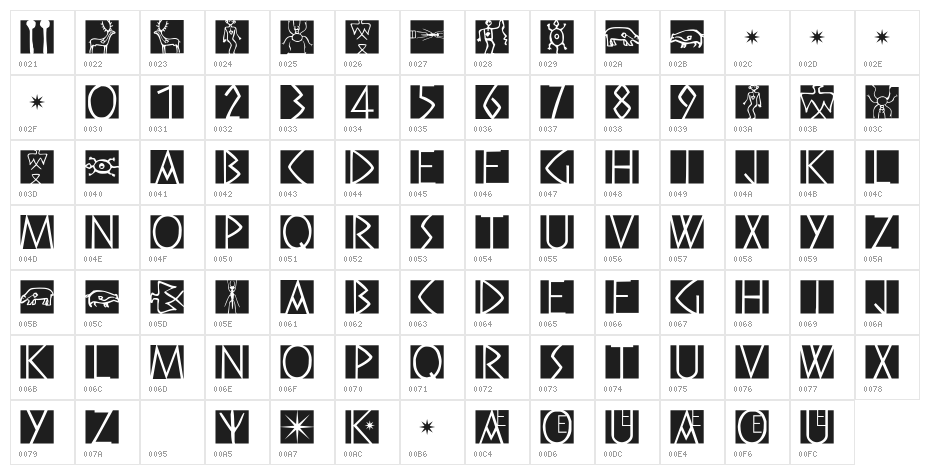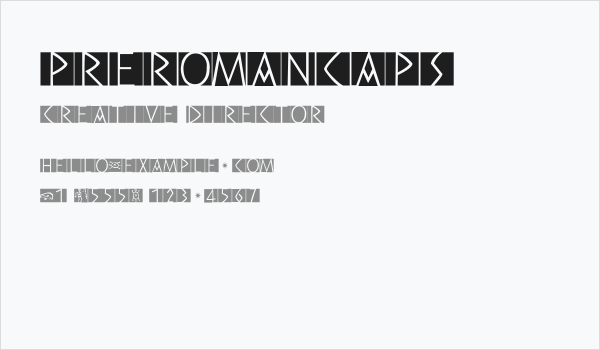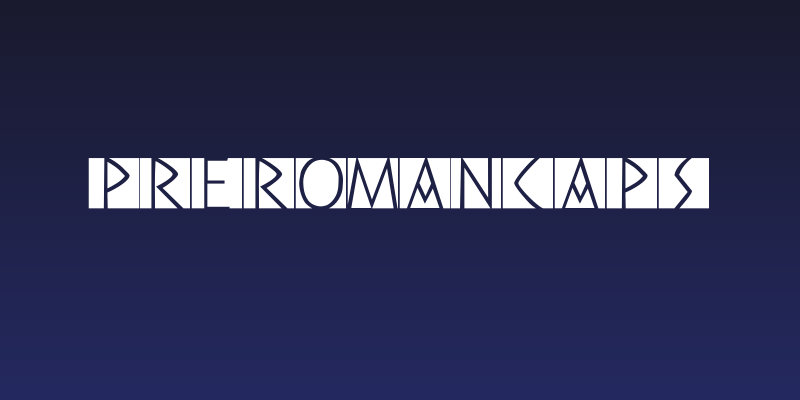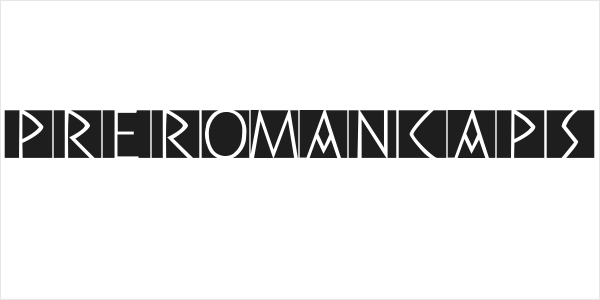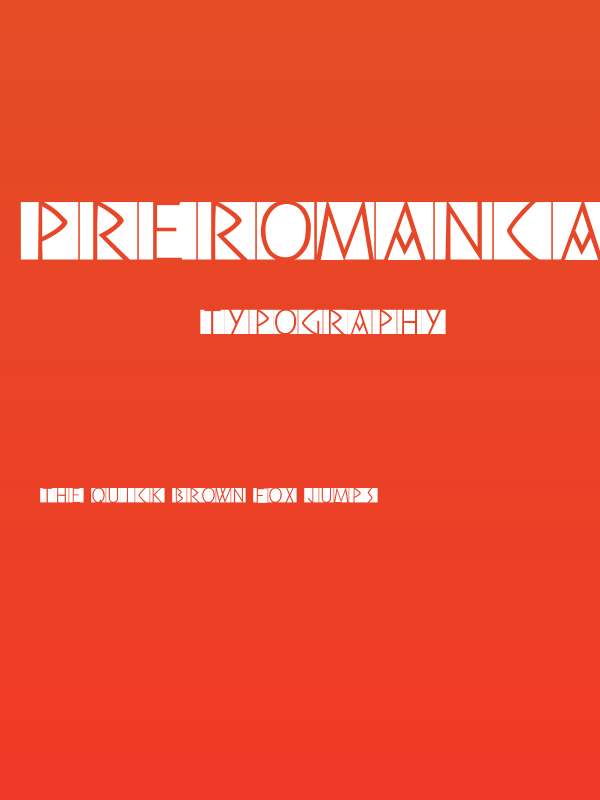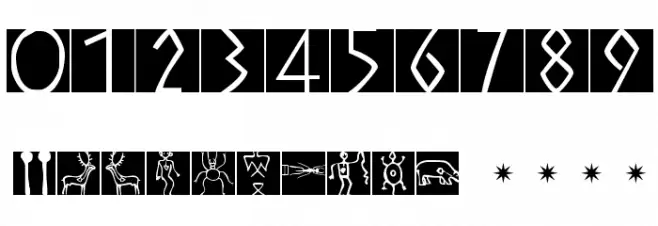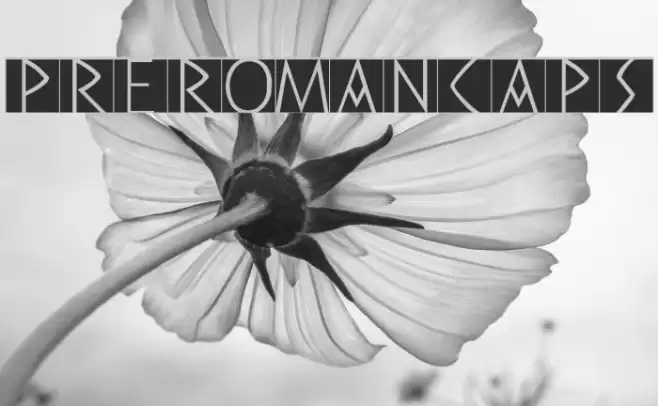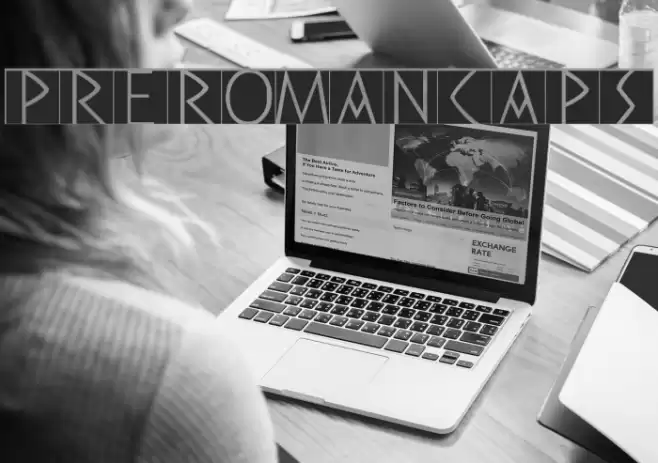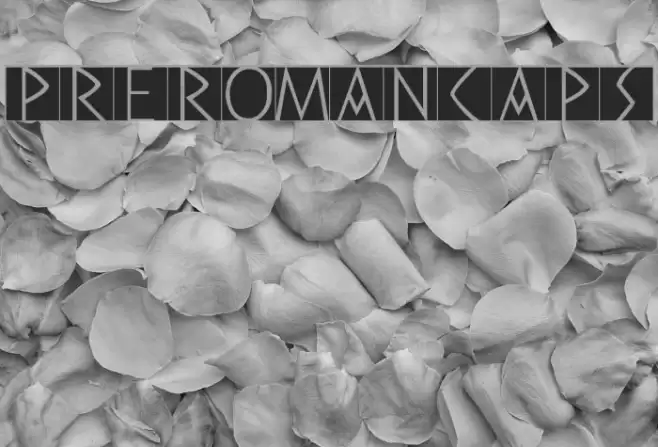
PreRomanCaps Font
PreRomanCaps Description
This font features a bold, geometric style with sharp angles and a strong presence. The characters are constructed with a unique, almost architectural design, reminiscent of ancient inscriptions. Each letter is distinct, with a consistent use of triangular and rectangular shapes that create a cohesive and striking appearance. The numbers follow the same stylistic approach, ensuring uniformity across the typeface. The special characters are designed with similar geometric elements, adding to the overall aesthetic. This font is ideal for projects that require a bold and historical feel, such as posters, logos, or branding materials that aim to convey strength and tradition.
| Proposed Projects | Ideal for posters, logos, branding materials, and projects requiring a historical or strong aesthetic. |